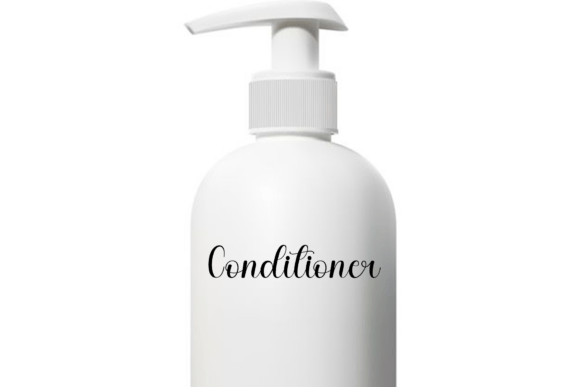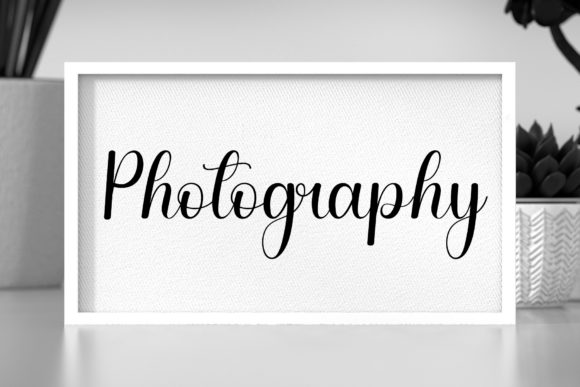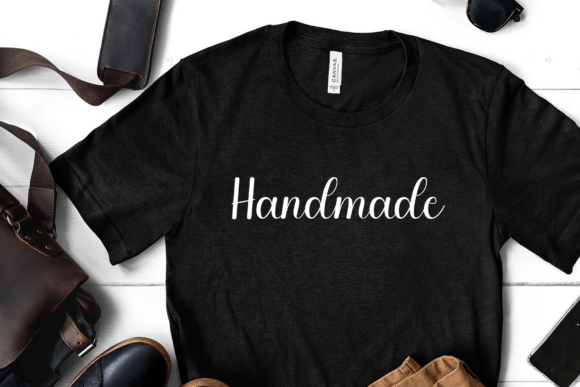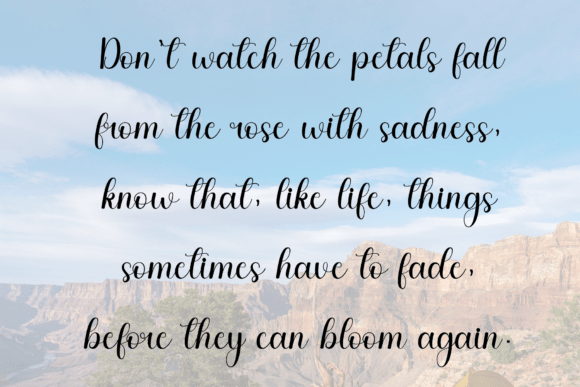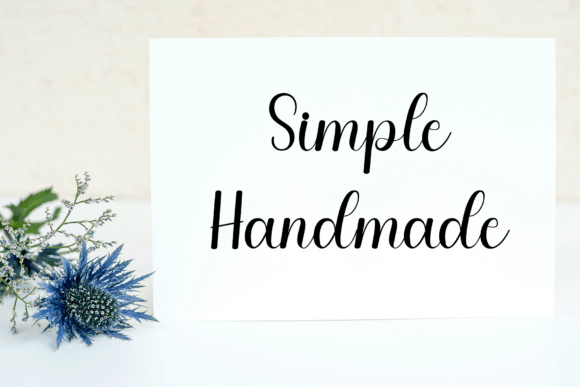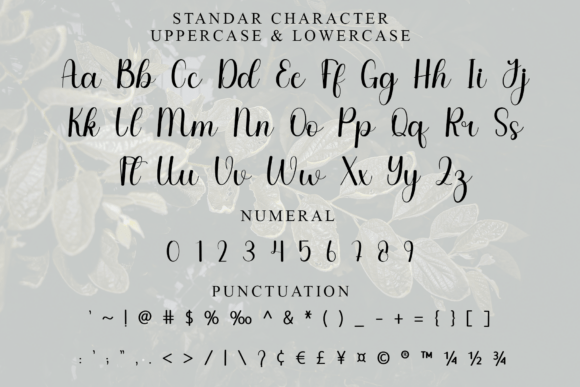
Deck the Halls with Beautiful Typography
As the snowflakes start to fall and the holiday lights twinkle, many of us can’t help but feel a sense of festive cheer. It’s the perfect time to get creative and make our designs shine with a dash of holiday magic. For designers, finding the right font can make all the difference in capturing the spirit of the season.
Enter Amellia Font, a delightful typeface that embodies the joy and whimsy of the holiday season. With its decorative elements and playful flair, Amellia Font adds a touch of enchantment to any design. Whether you’re creating greeting cards, gift tags, or holiday-themed projects, this font brings a cheerful and nostalgic ambiance to your words.
With Amellia Font, you’ll have access to a world of creative possibilities. Its PUA encoding means you can easily access all the amazing glyphs and ligatures, making it a valuable addition to any designer’s toolkit.
Amellia Font Key Features
- Font Family: Amellia Font is a modern script font, perfect for various design applications.
- Character Count: Amellia Font contains 250 characters, including uppercase and lowercase letters, numerals, and special characters.
- Unique Characteristics: Amellia Font features a flowing, cursive design with subtle flourishes and connections between letters, making it ideal for creative and elegant typography.
Amellia Font Review
Overall, I’d say the Amellia font is a solid choice for any project that needs a clean and elegant look. ✨ Its modern design makes it perfect for titles, headings, and body text alike. The font’s versatility shines through its multiple weights and styles, allowing designers to experiment with different combinations to suit their needs.
Here are some of the Amellia font’s notable strengths:
- ✨ Beautifully crafted letterforms with precise details
- ✨ Excellent legibility, even at small font sizes
- ✨ Wide range of weights and styles to choose from
- ✨ Suitable for both print and digital media
- ⚠️ May not be as distinctive or unique as some other fonts on the market
- ⚠️ Some users may find the font’s modern look to be too generic or common
- ⚠️ Limited language support, which may be a concern for designers working with non-English text
Overall, I think the Amellia font is a reliable choice for designers who value a clean and elegant look. While it may not be the most distinctive or unique font out there, it gets the job done and is a great option for projects that require a professional and polished appearance.
Amellia Font is a beautiful, elegant script font perfect for:
Branding and logos
Headings and titles in design projects
To get the most out of Amellia Font, use it sparingly to create a sense of sophistication and elegance in your designs.
Alternatives to Amellia Font
Amellia Font is a popular sans-serif font, but designers may be looking for alternatives that offer different styles and characteristics. Here are a few options:
Montserrat is a geometric sans-serif font that originated in Buenos Aires. It is known for its urban feel and is often used for headings and titles. Montserrat is similar to Amellia Font in its modern and clean design, but it has a more geometric and industrial feel.
Use Montserrat when you want to add a touch of urban sophistication to your design.
Open Sans is a modern sans-serif font that is highly legible and versatile. It is often used for body text and is suitable for a wide range of applications. Open Sans is similar to Amellia Font in its clean and minimalist design, but it has a more neutral and approachable feel.
Use Open Sans when you want a clean and readable font for your body text.
Lato is a sans-serif font that is known for its elegant and refined design. It is often used for headings and titles, and is suitable for a wide range of applications. Lato is similar to Amellia Font in its modern and sophisticated feel, but it has a more classic and timeless quality.